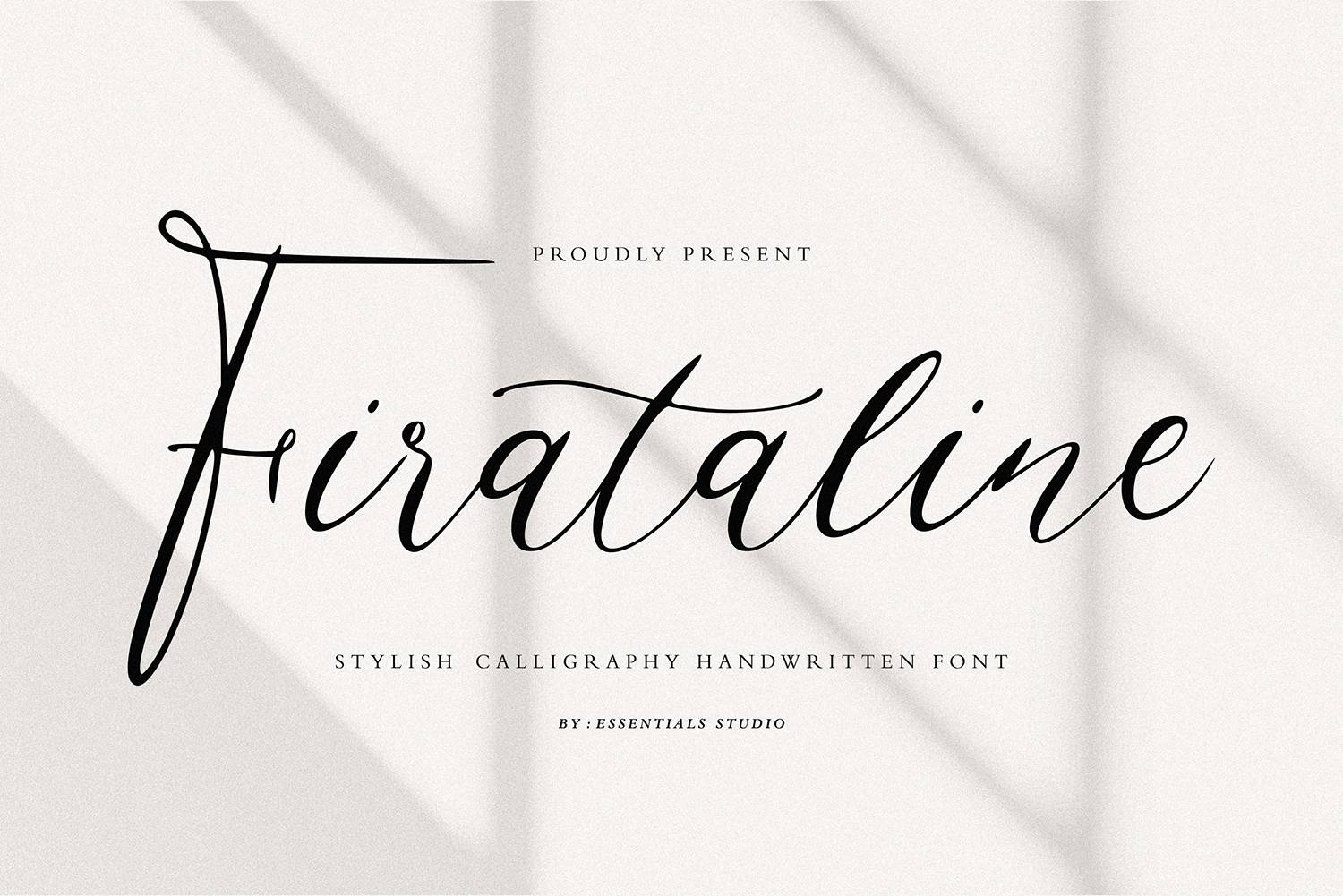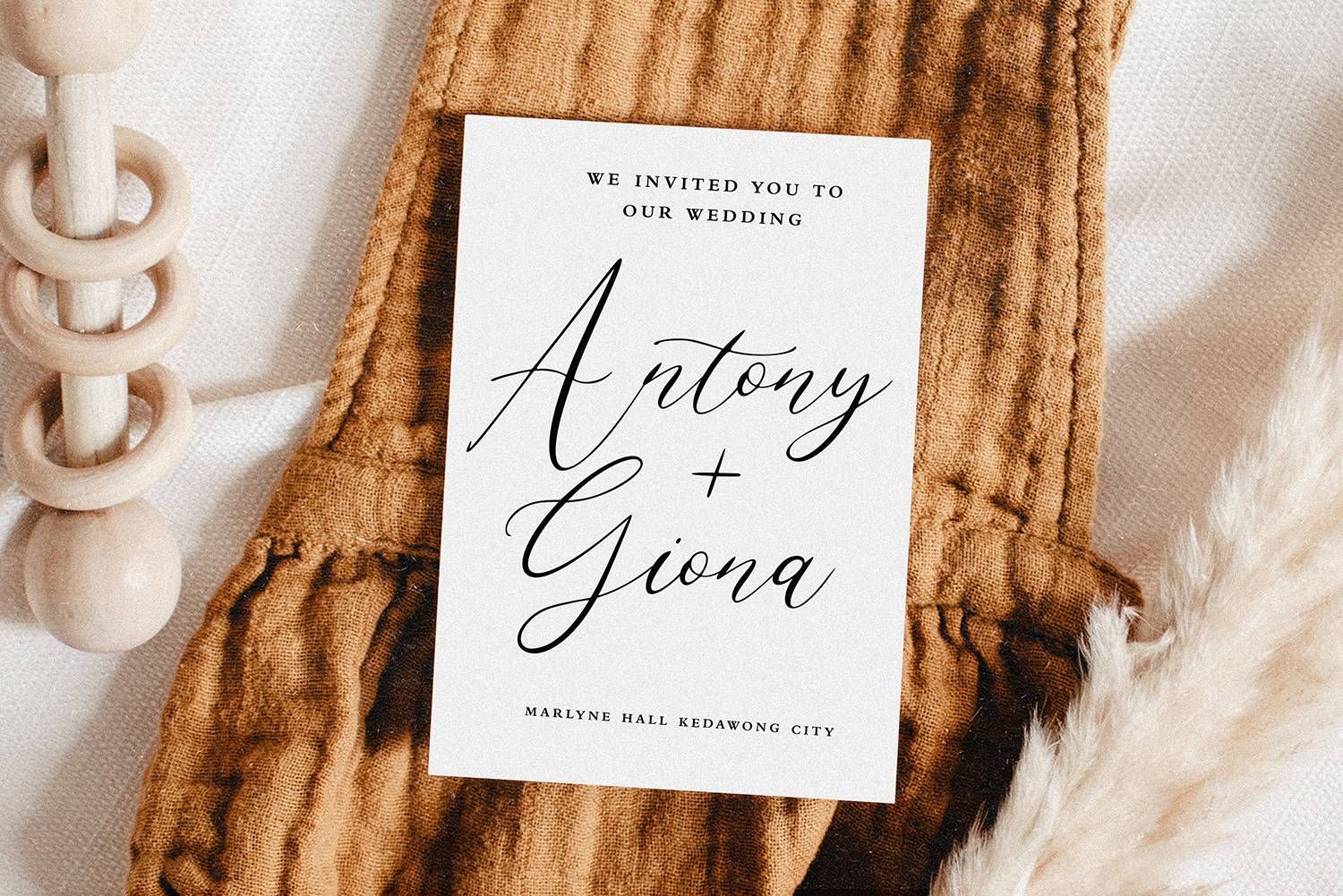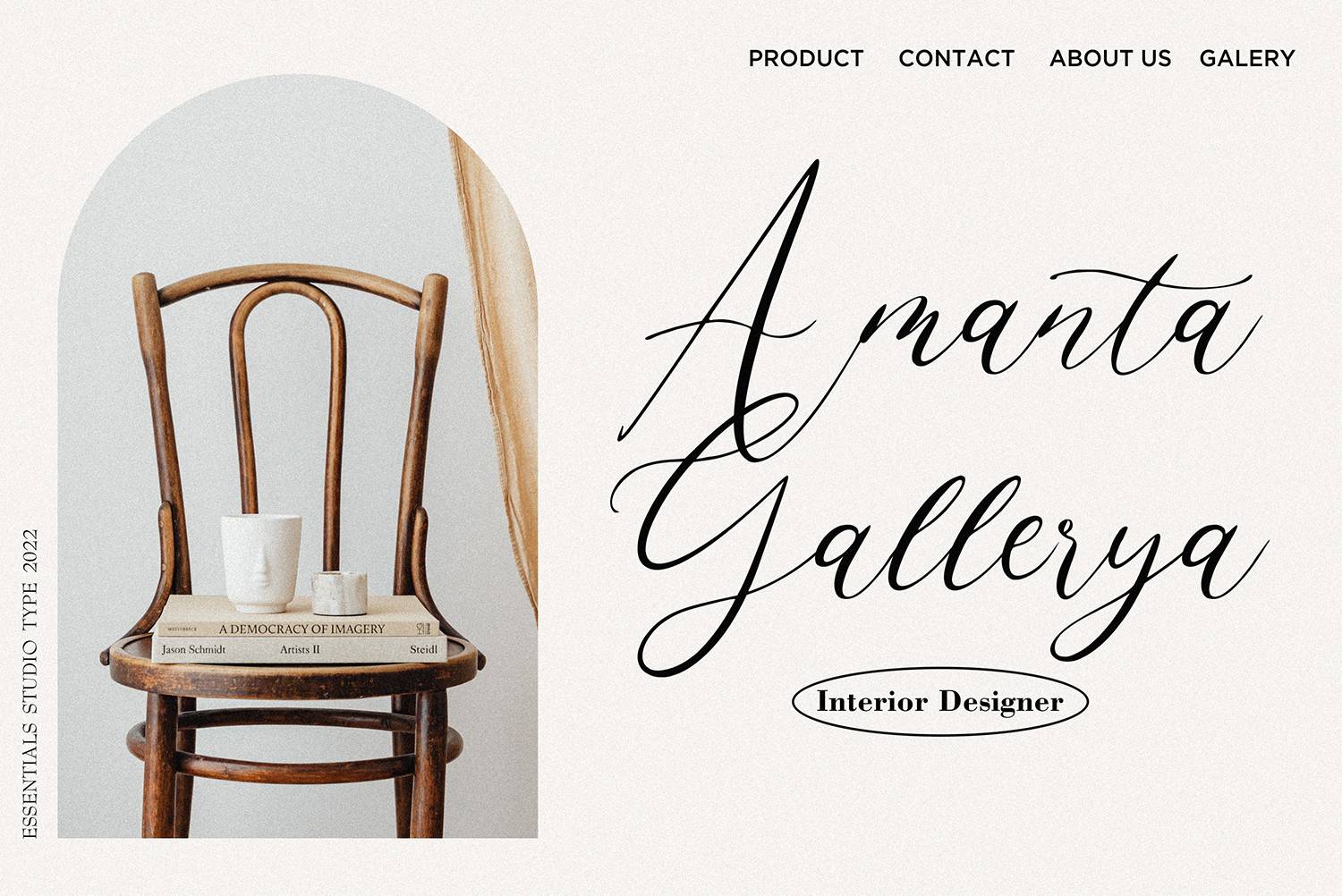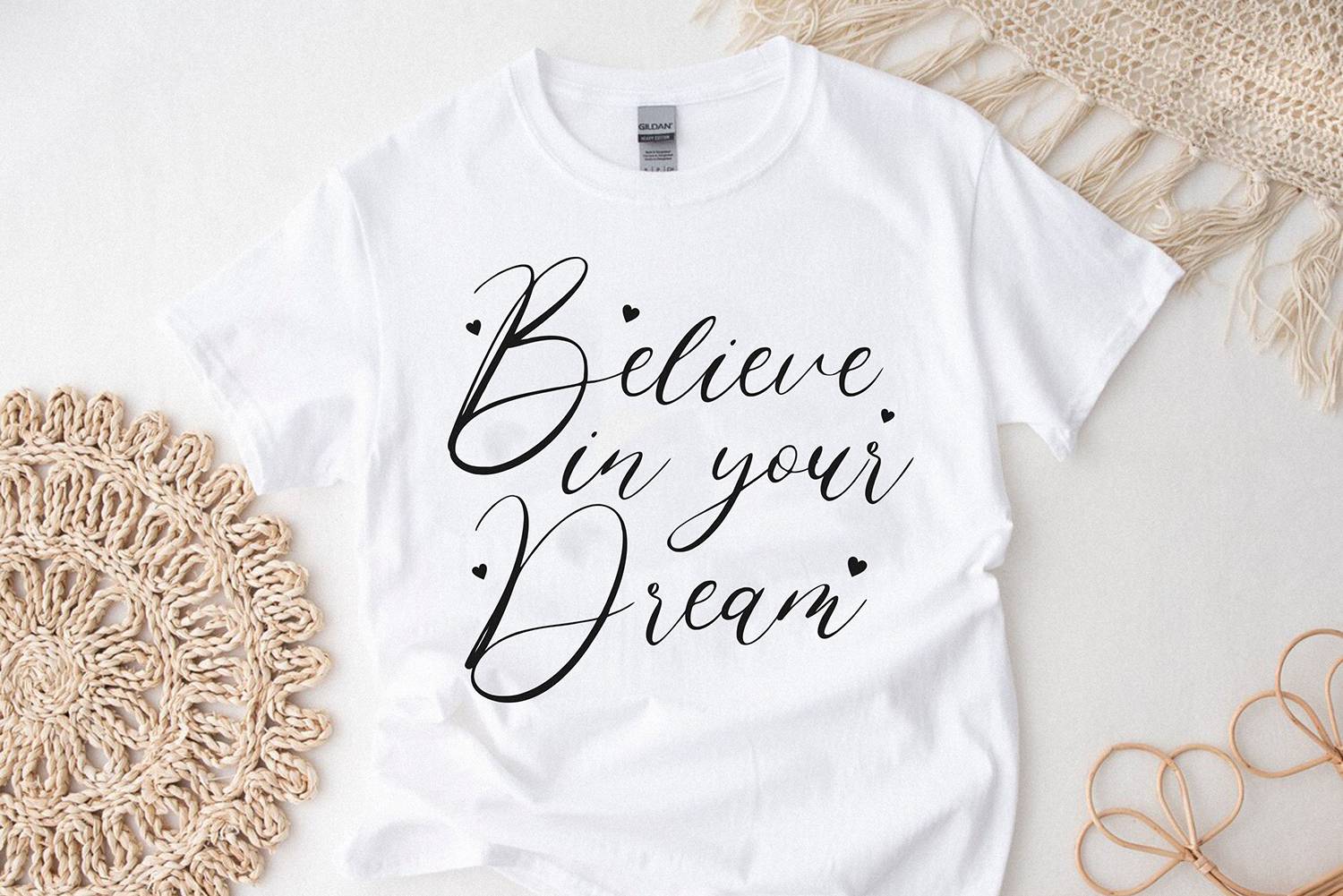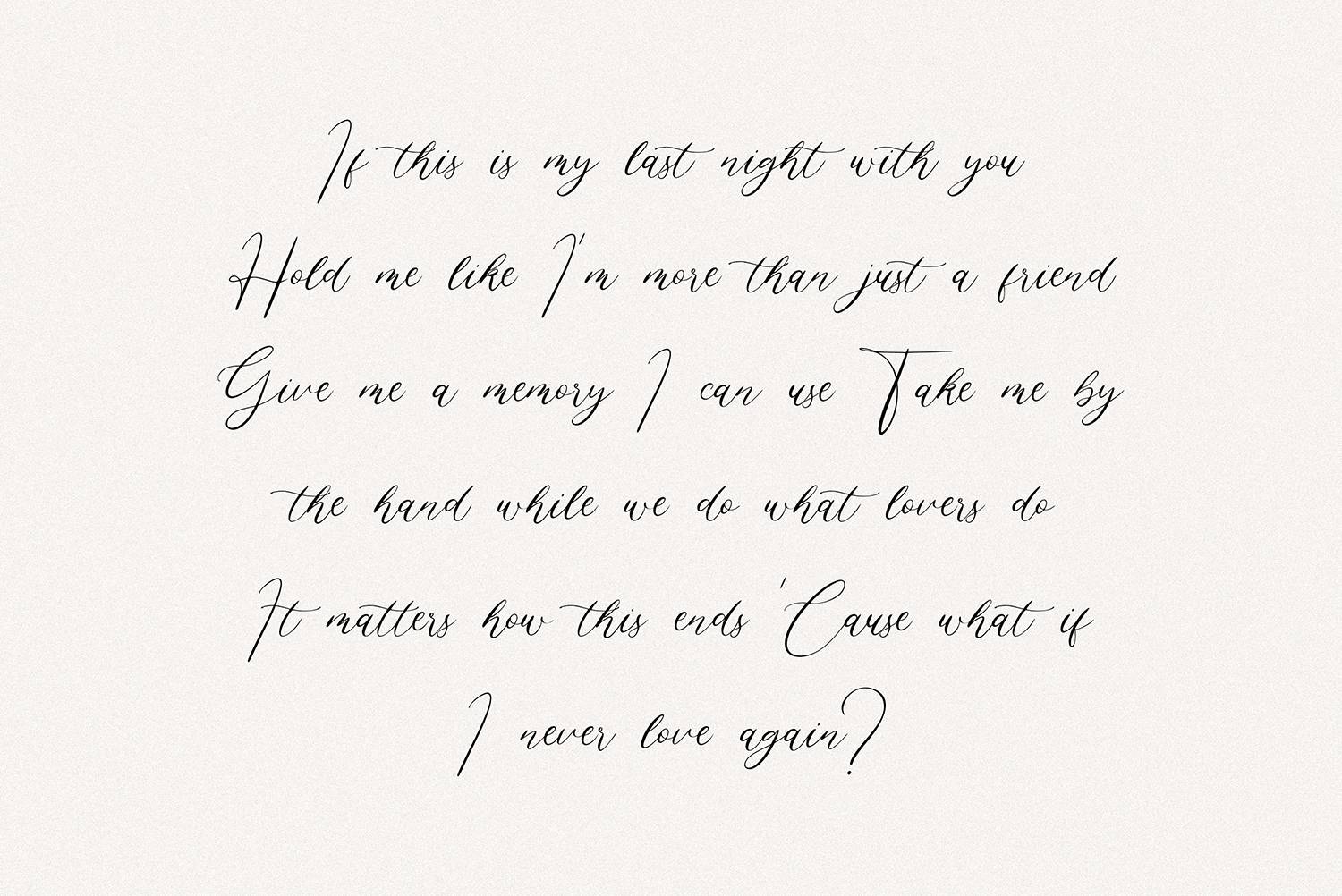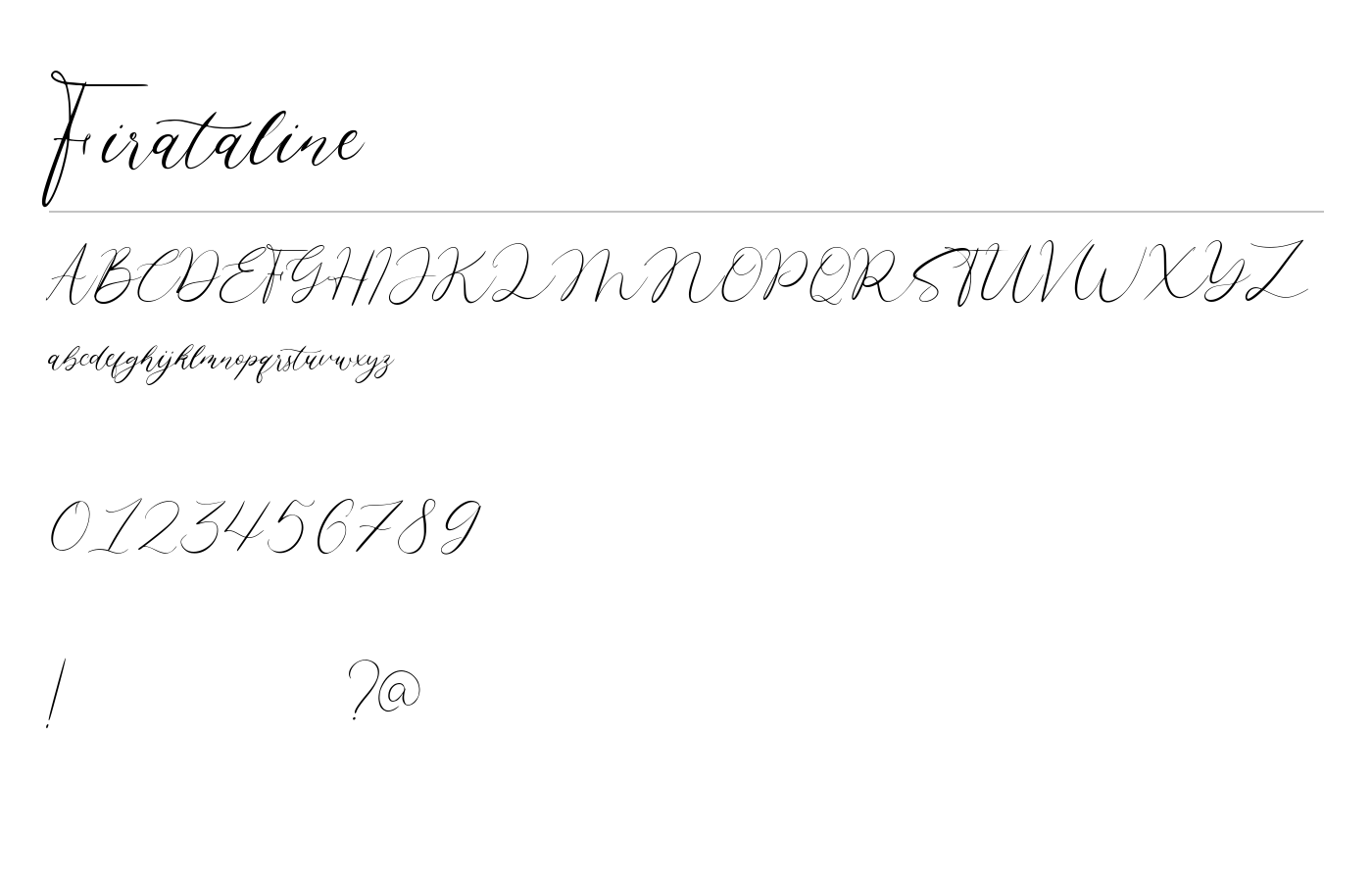
Firataline is a delicate and elegant script font with fine, flowing strokes that mimic beautiful hand lettering. Its slender, calligraphic style with high contrast between thin and slightly thicker lines gives it a sophisticated and graceful feel, making it perfect for wedding invitations, luxury branding, and refined editorial designs. This font works best in large sizes for headlines or logos where its intricate details can shine.
Firataline Font
About Firataline Font
| Font family | Firataline Font |
| Designer | Sulthan Mada Maulana Tsani |